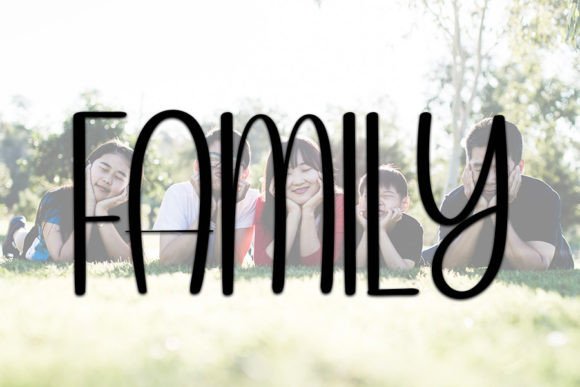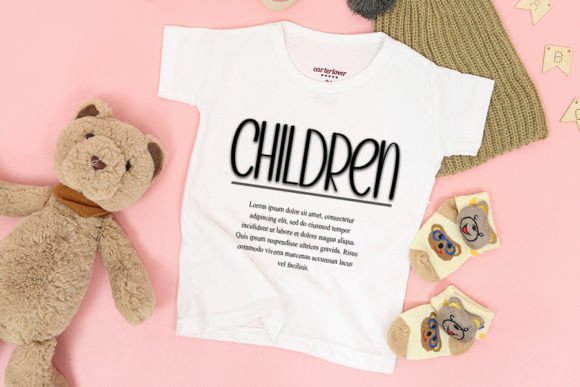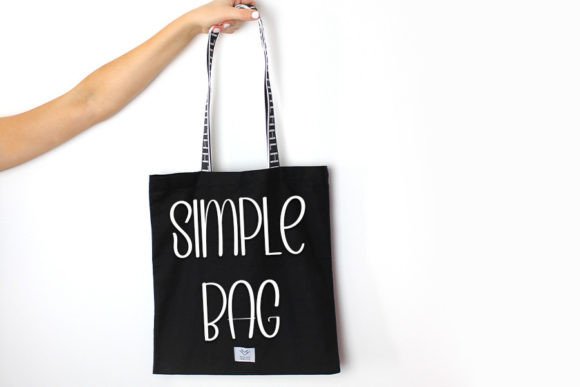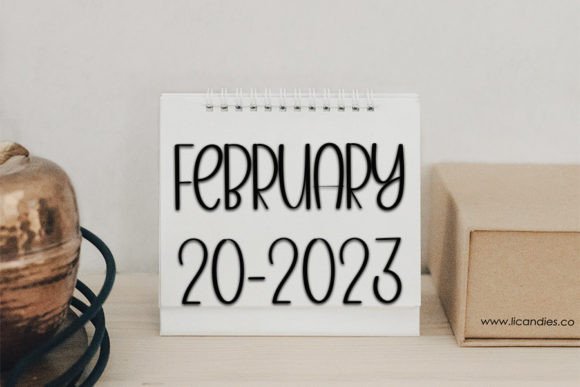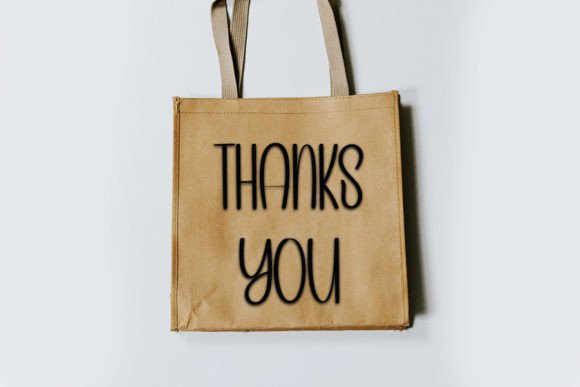
Introducing February Font: Elevate Your Designs with Elegance
Are you on the hunt for a font that adds a touch of sophistication and charm to your projects? Look no further than February Font, a stunning handwritten typeface that exudes elegance and refinement. With its unique blend of classic and modern elements, February Font is the perfect choice for designers and crafters seeking to create visually striking designs that capture the essence of their brand or message.
The Beauty of February Font
February Font is a meticulously crafted handwritten font that boasts an incredibly distinct and timeless style. Its elegant touch is instantly noticeable, making it an excellent choice for a wide range of applications, from romantic wedding invitations and stylish branding materials to engaging social media graphics and captivating blog posts.
One of the standout features of February Font is its remarkable legibility, even at smaller sizes. This makes it an excellent choice for designers who need to create compact yet visually appealing text. The font’s flowing lines and carefully considered letterforms work in harmony to create a sense of movement and fluidity, drawing the viewer’s eye through the text with ease.
What Makes February Font So Special?
So, what sets February Font apart from other fonts on the market? Here are just a few reasons why designers and crafters are falling in love with this beautiful typeface:
- Elegant and Refined: February Font’s elegant touch lends a sense of sophistication to any design, making it perfect for high-end branding, luxury products, and special occasions.
- Unique and Memorable: The font’s distinct style ensures that your designs will stand out from the crowd, leaving a lasting impression on your audience.
- Versatile: February Font is incredibly versatile, working beautifully in a variety of contexts, from digital designs to print materials.
- Easy to Read: Despite its elegant and refined nature, February Font remains highly legible, even at smaller sizes.
Using February Font in Your Designs
February Font is incredibly easy to use, even for designers who are new to working with handwritten fonts. Here are a few tips to help you get started:
- Pair it with Other Fonts: Combine February Font with other fonts to create visually interesting contrast and add depth to your designs.
- Experiment with Colors: February Font works beautifully with a range of colors, from soft pastels to rich jewel tones.
- Play with Size: Don’t be afraid to experiment with different font sizes to create visual hierarchy and emphasize key elements of your design.
February Font is a dream come true for designers and crafters who value elegance, sophistication, and creativity. Whether you’re working on a client project or personal endeavor, this beautiful font is sure to inspire and elevate your designs.
In conclusion, February Font is a truly special typeface that deserves a place in every designer’s toolkit. Its unique blend of elegance, refinement, and creativity makes it the perfect choice for anyone seeking to create visually striking designs that capture the essence of their brand or message.
So if you’re ready to elevate your designs and add a touch of sophistication to your work, look no further than February Font. With its timeless style, incredible legibility, and versatility, this beautiful font is sure to become a favorite in your design arsenal.